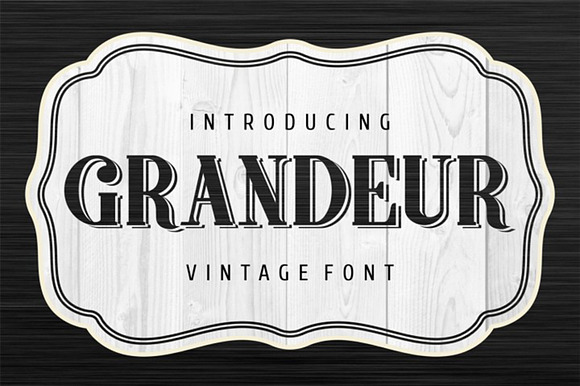
Grandeur new vintage font
Book covers or inside chapters section heading
Posters or postcards design
Printed letters, envelops design, address lines
Party decorations and congratulation cards
Invitation letters and business envelopes
Text headings and graphic themes designs
Grandeur new vintage font by Vintage Font Lab fits naturally into Branding, posters, packaging, typography.